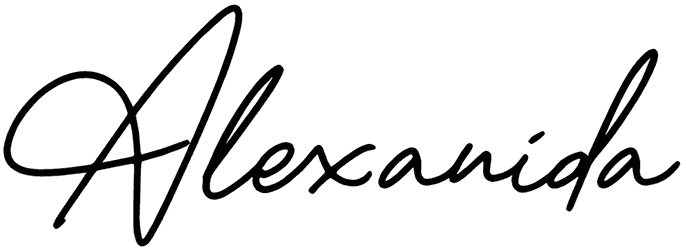
Nirmala Font
One of the best choices for a modern design is a casual handwritten font to communicate well with your followers. This option has such a style and, with its cute and soft characters, can throw a friendly vibe into your birthday party Instagram story. Nirmala font will amp up your novel design and give it a unique form.